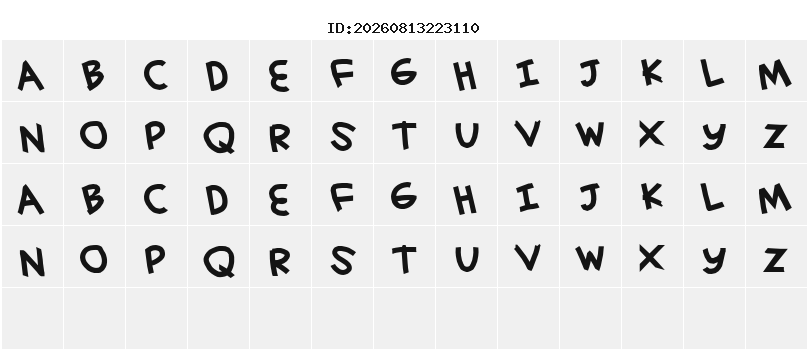
simplehand Preview
• Font Name: simplehand
• Font ID: simplehand:Version 1.00
• Full Font Name: simplehand
• Version: Version 1.00 March 13, 2012, initial release
• PostScript Name: simplehand
• Character Count: 53
• Designer: andy greer and max infeld
• Description: simplehand done in svg format on android
About simplehand.ttf
simplehand.ttf is a modern, elegant sans-serif font designed for ultimate readability and visual harmony. Perfect for branding, headlines, web design, and print materials.